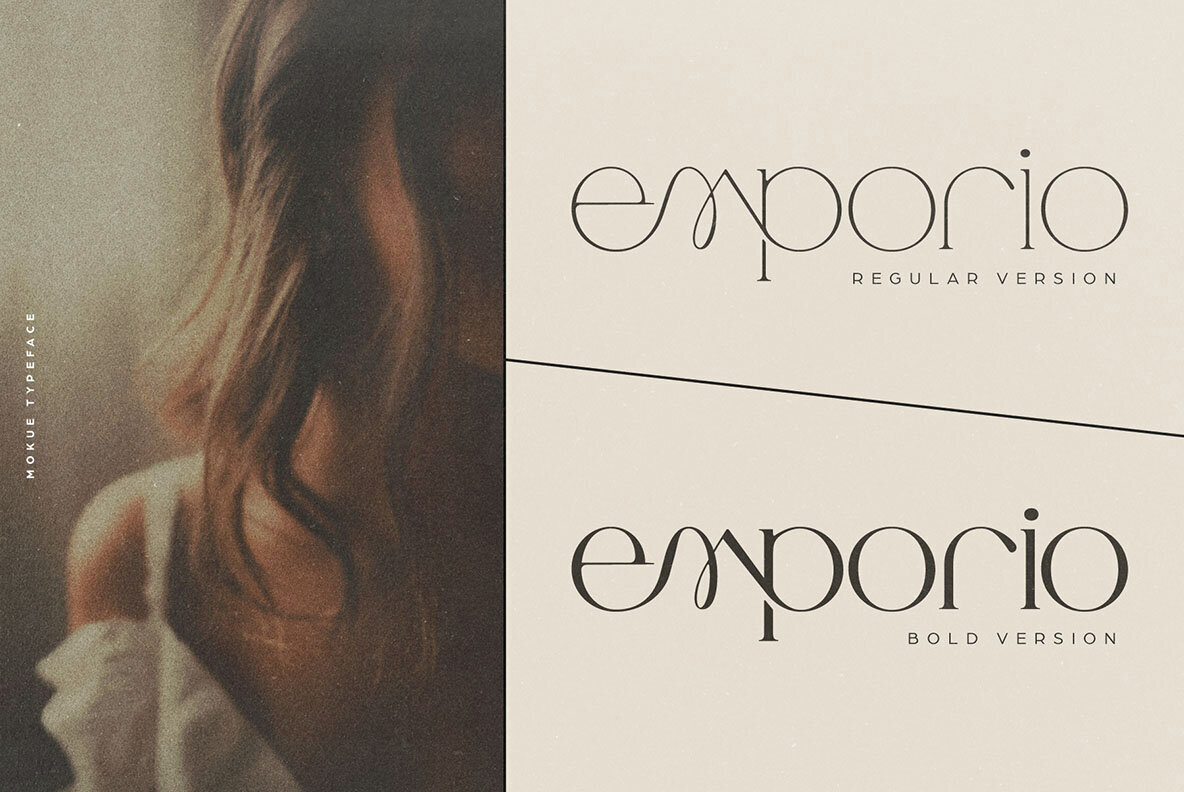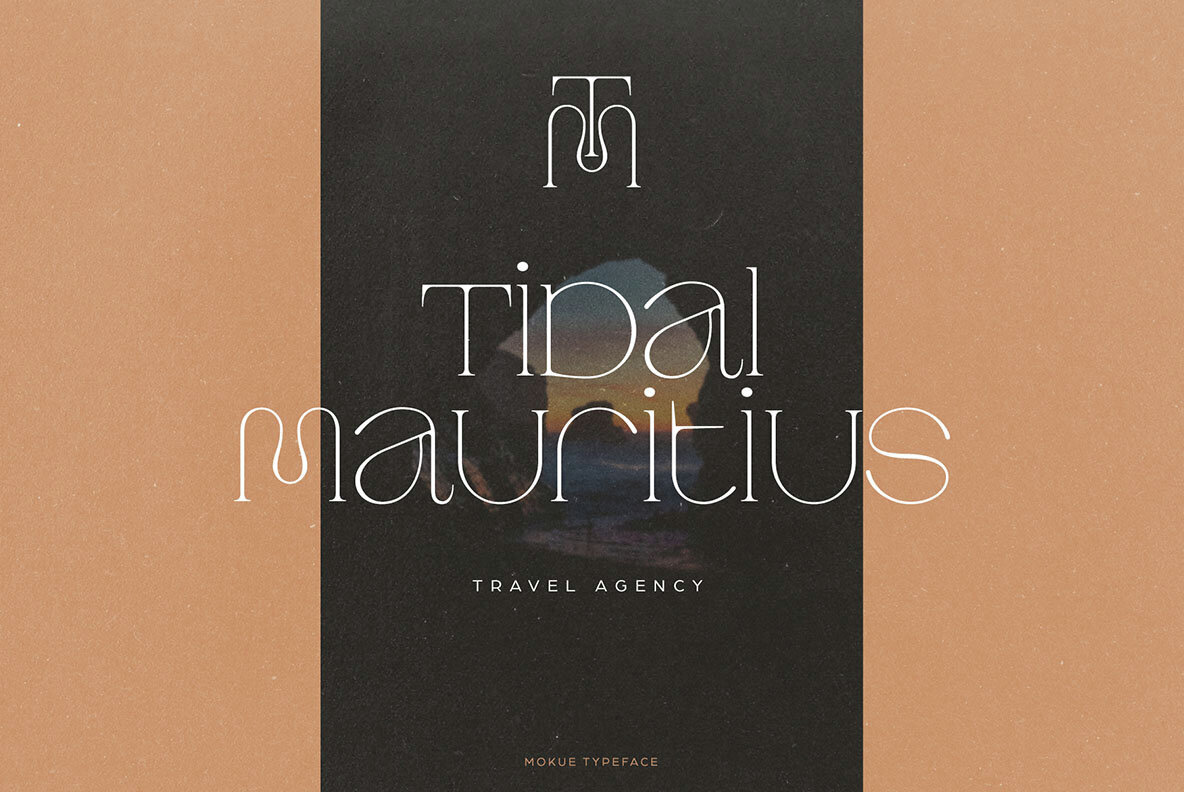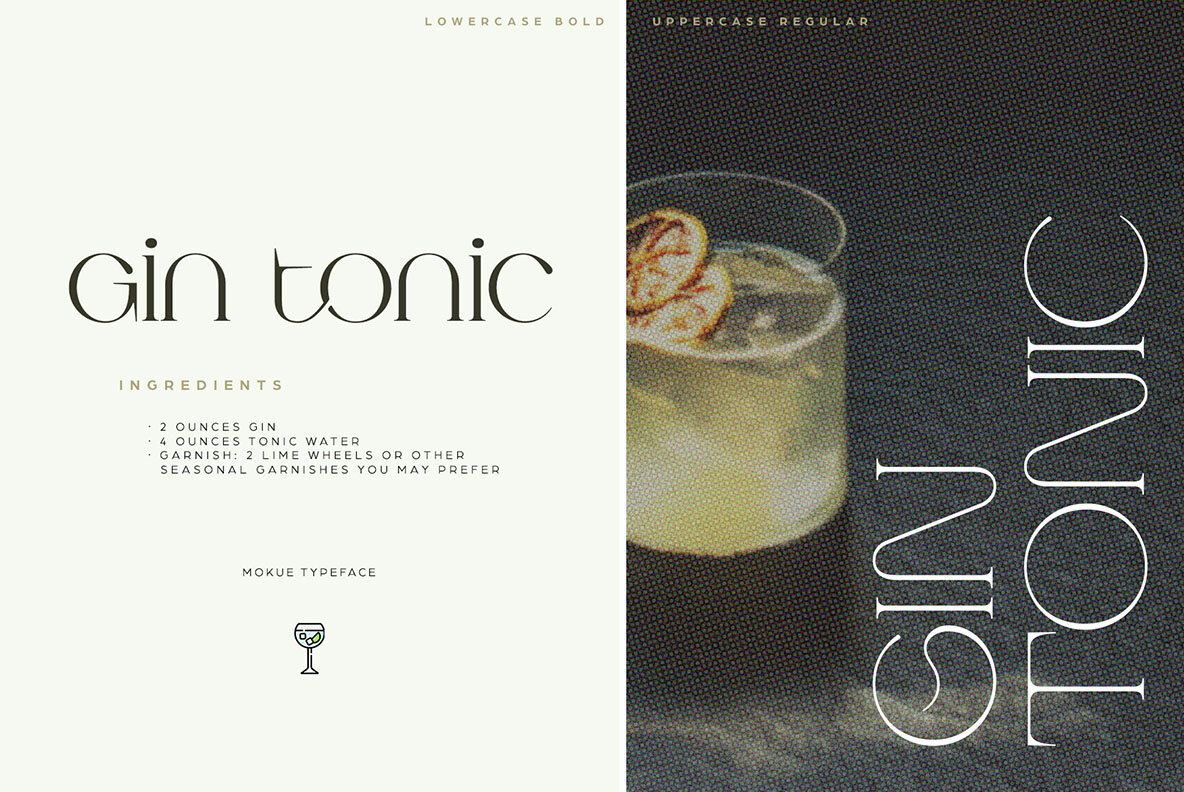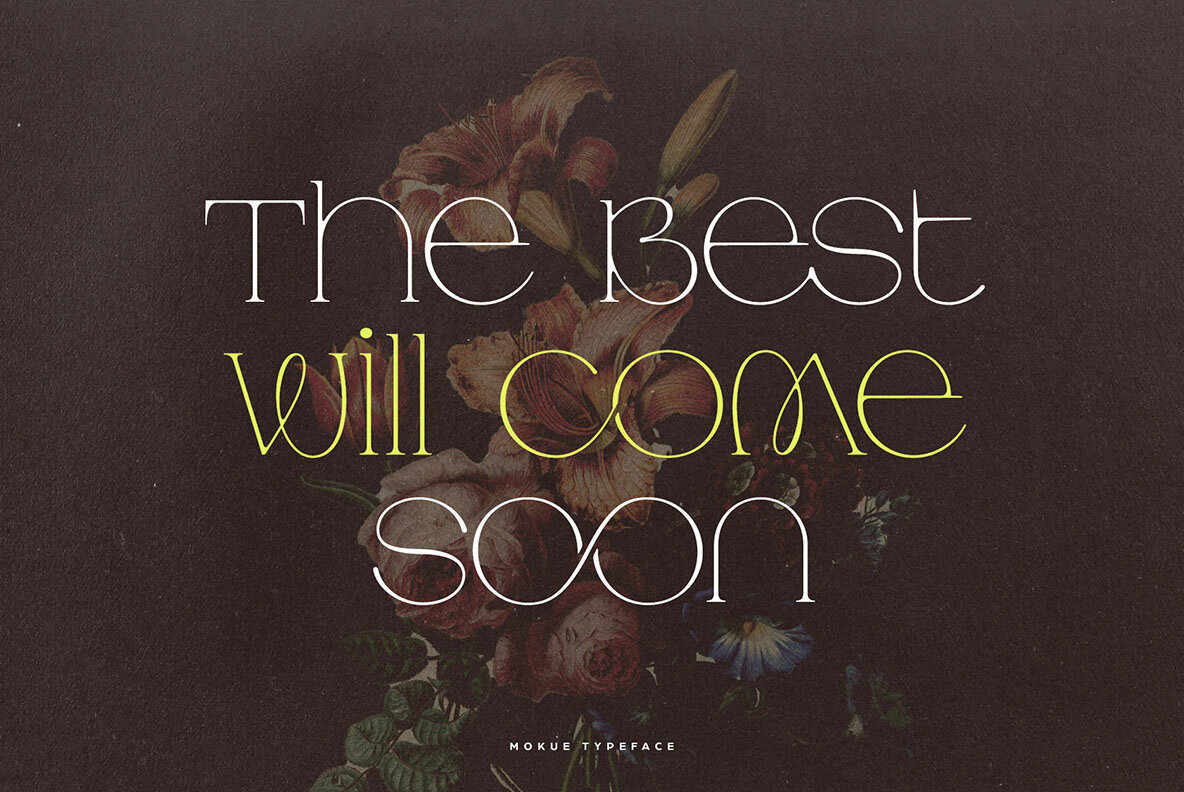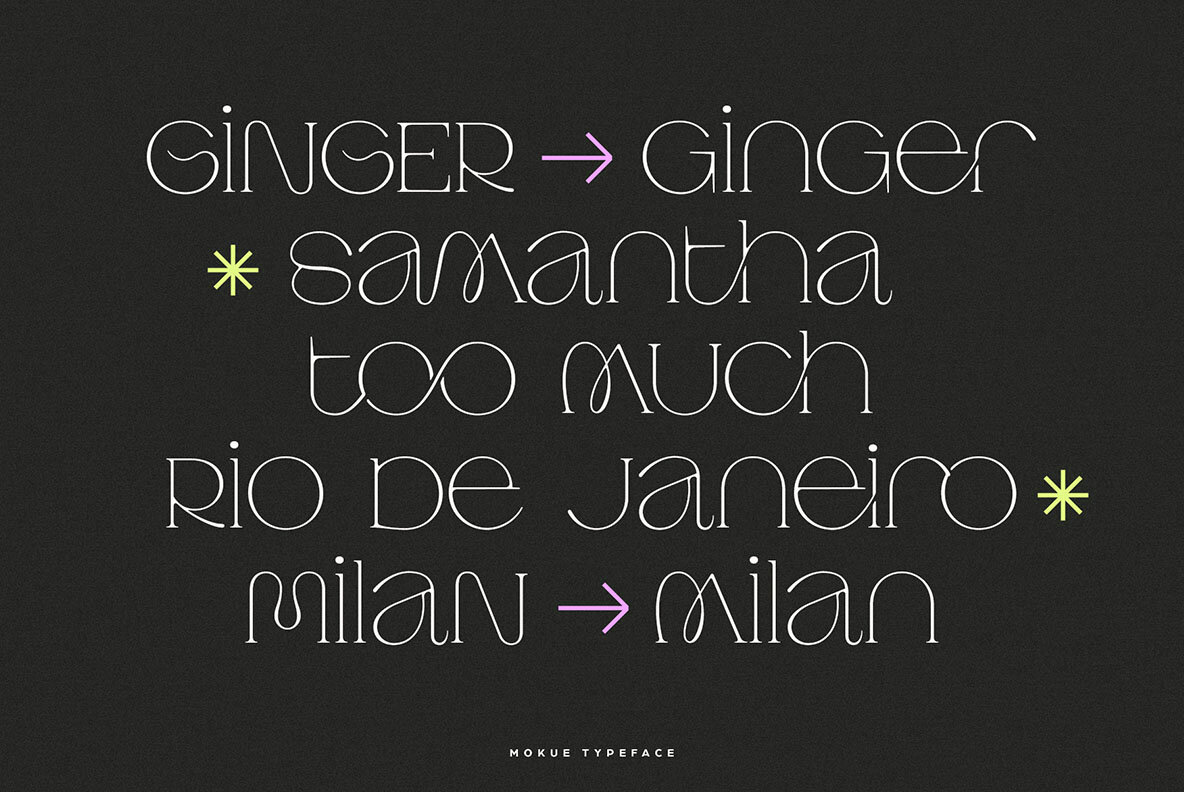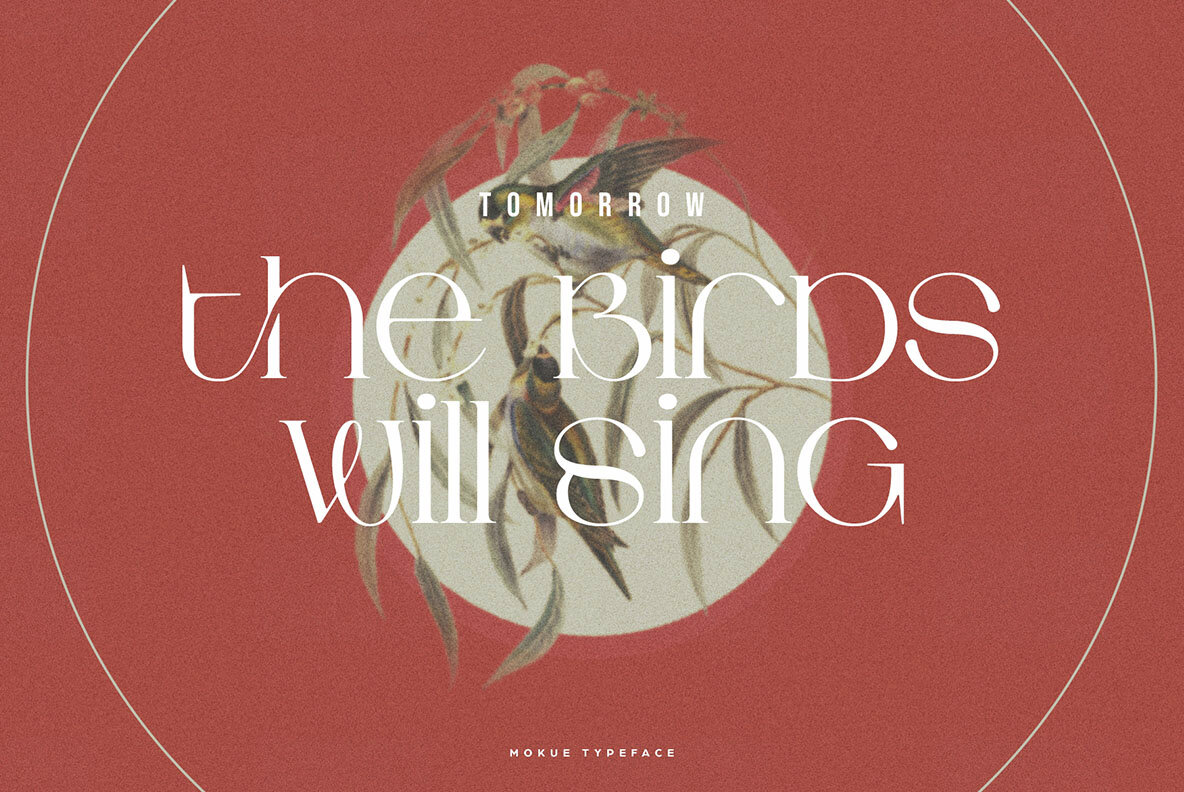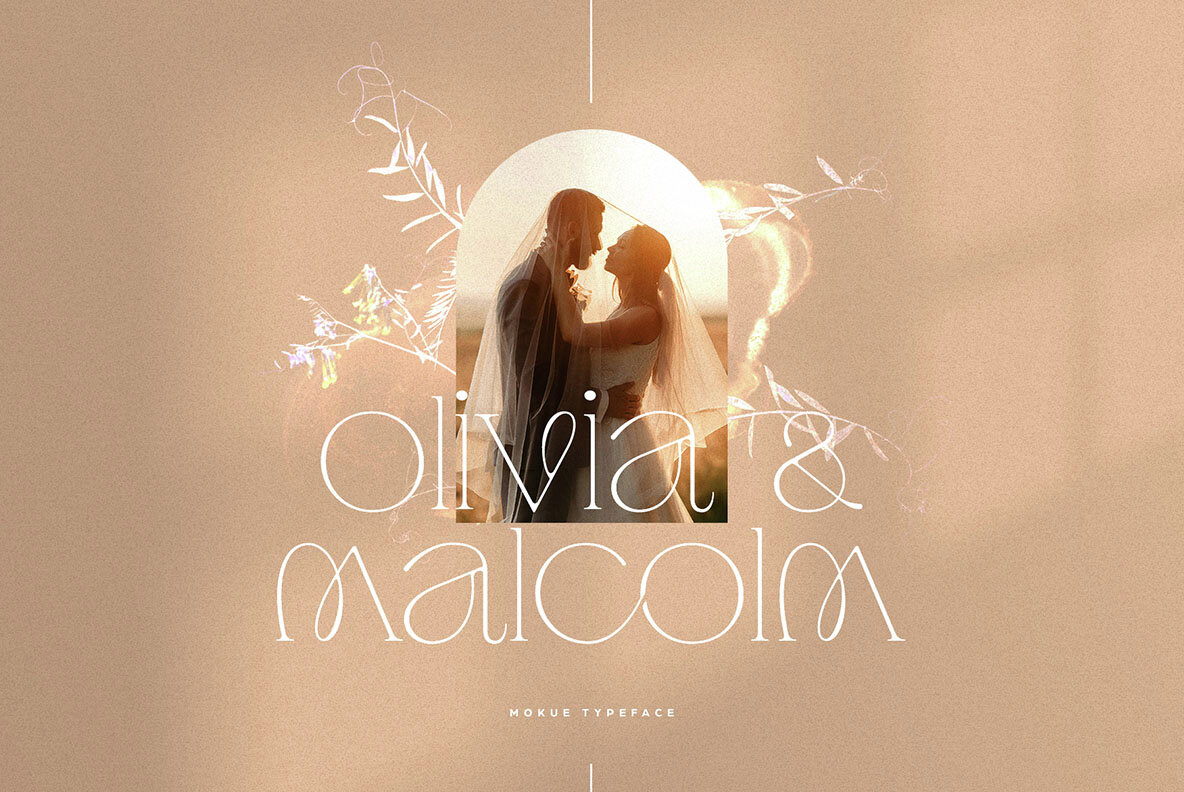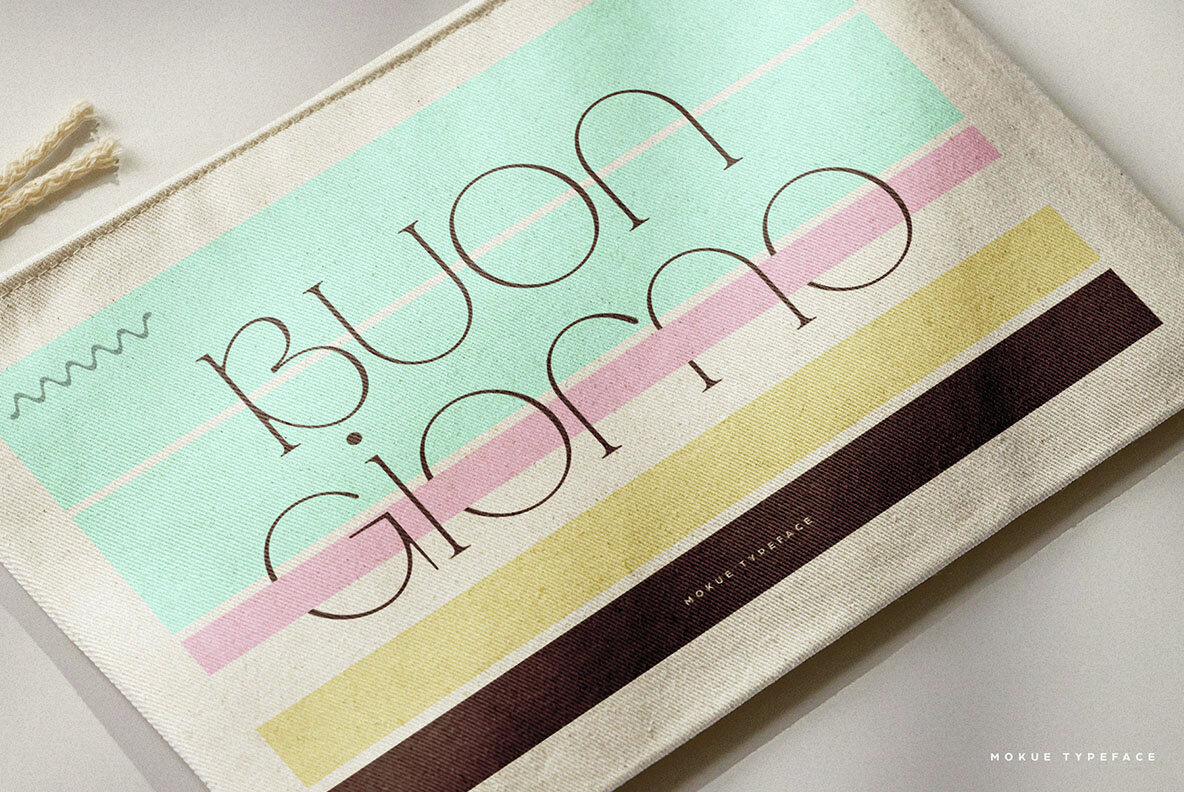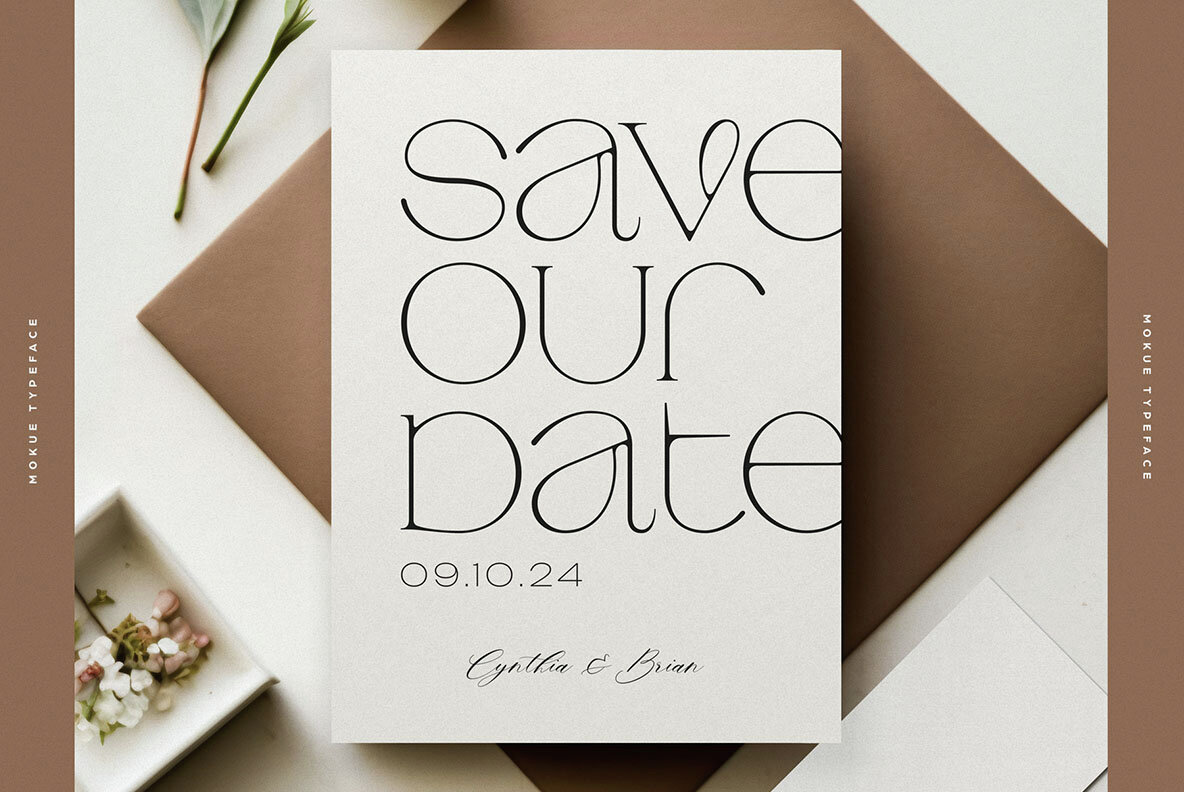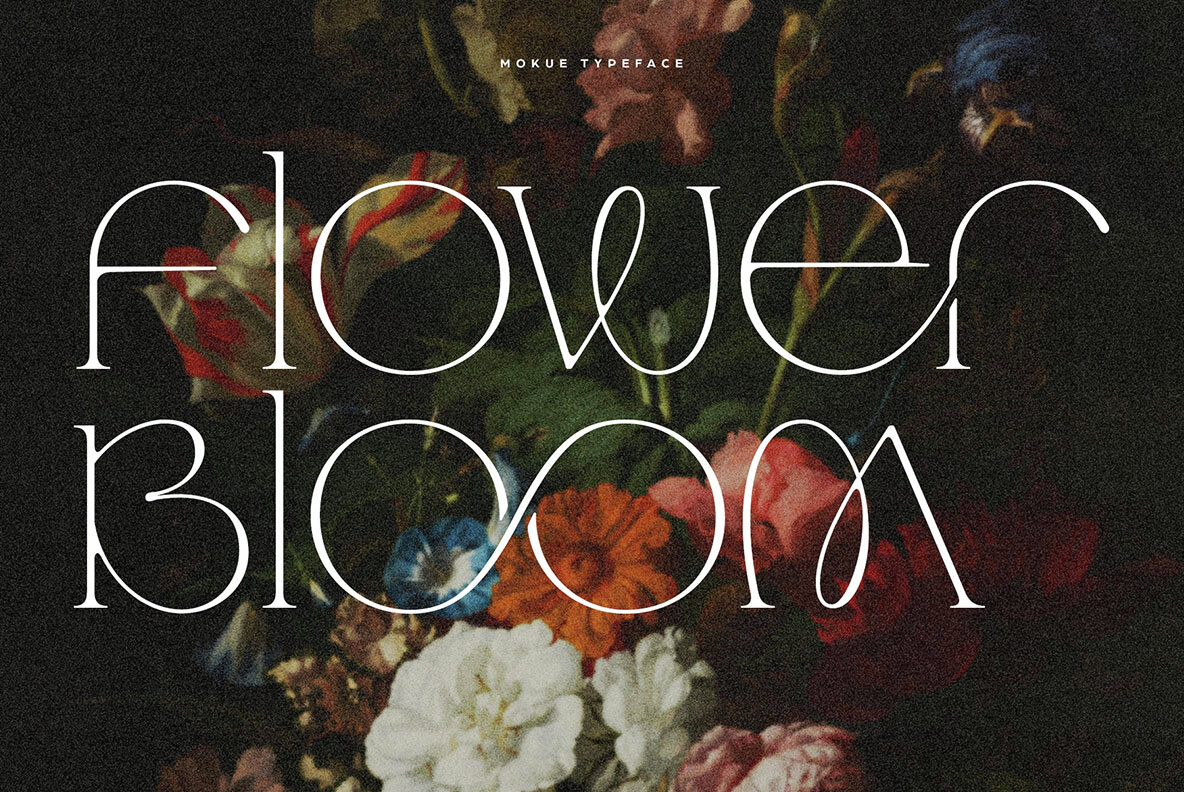
Mokue Font
Mokue is an elegant serif font rich in ligatures, inspired by the sophistication of fashion magazines. Available in both regular and bold versions, it offers a stylish option for designers seeking a refined typeface. Mokue is ideal for various design projects, including advertising, weddings, vintage mood boards, branding, logotypes, packaging, titles, editorial design, and both modern and vintage-themed designs. To access stylistic alternates, software with a glyphs panel like Photoshop or Illustrator is recommended. However, no special software is needed to utilize the ligatures.Mokue: Elegant Ligature-Rich Serif